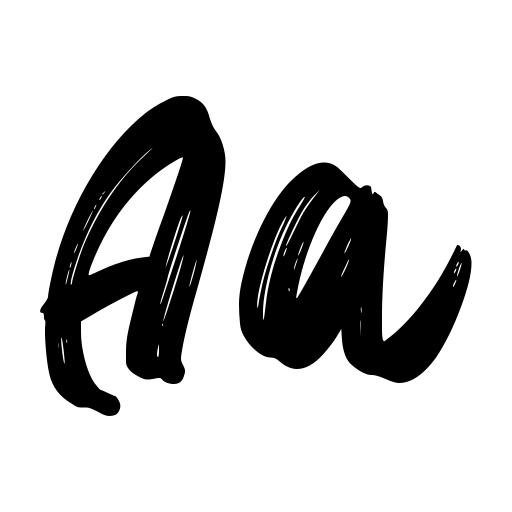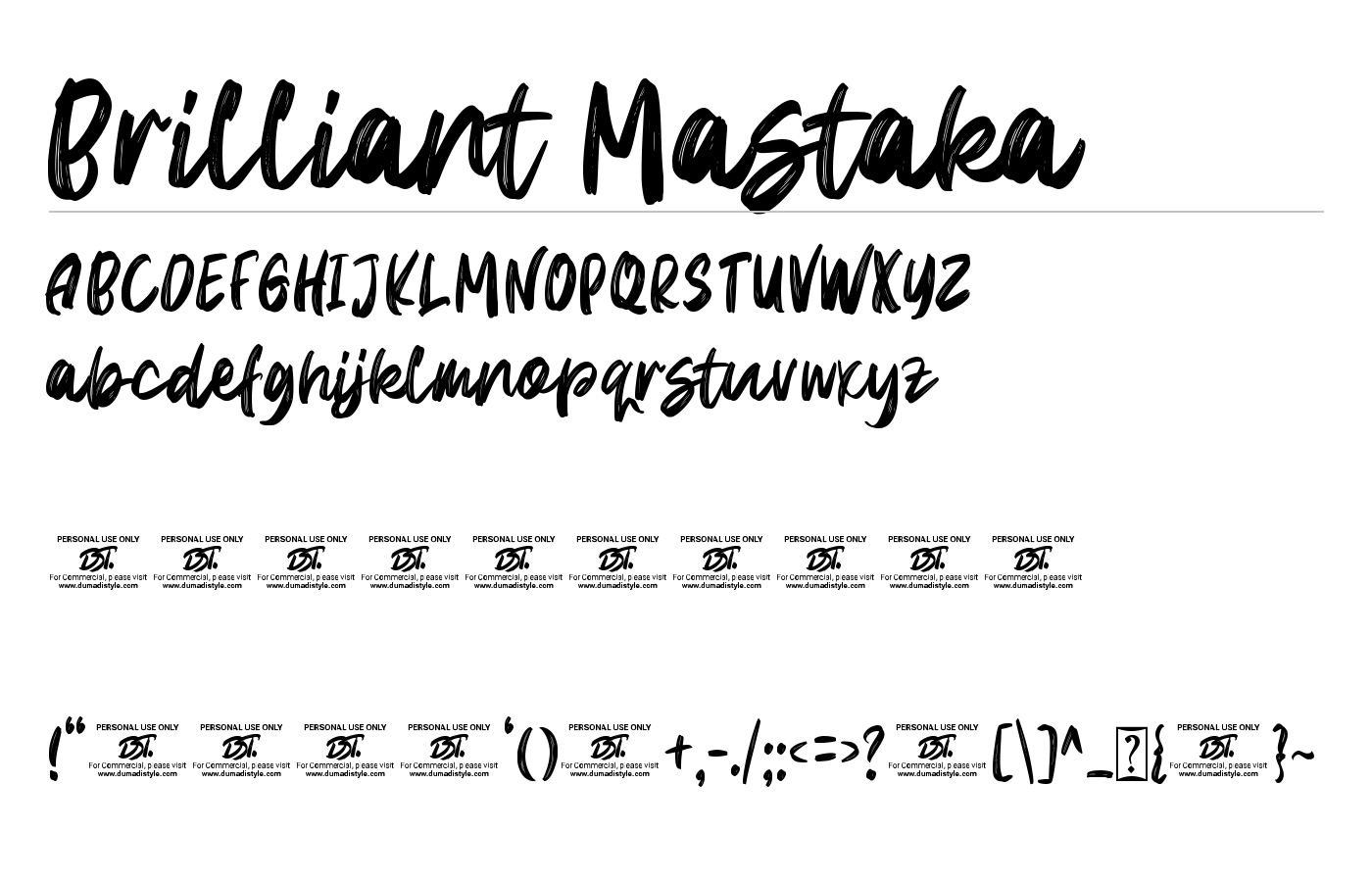
Brilliant Mastaka is a lively, hand-drawn script font featuring bold, brush-style strokes that give it an organic and dynamic feel. Its casual and playful character suits creative projects, branding, and headlines where a personal, informal touch is desired, making it perfect for lifestyle, art, and youth-oriented designs.
Brilliant Mastaka Font
About Brilliant Mastaka Font